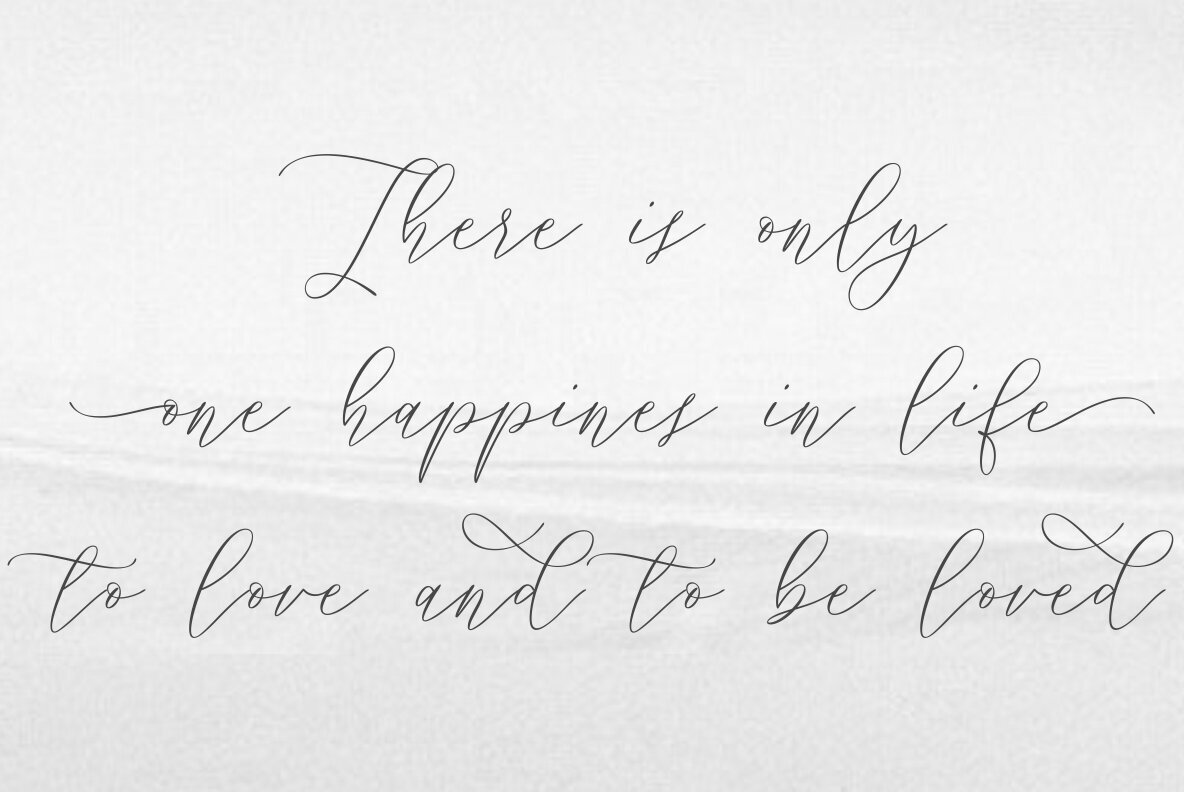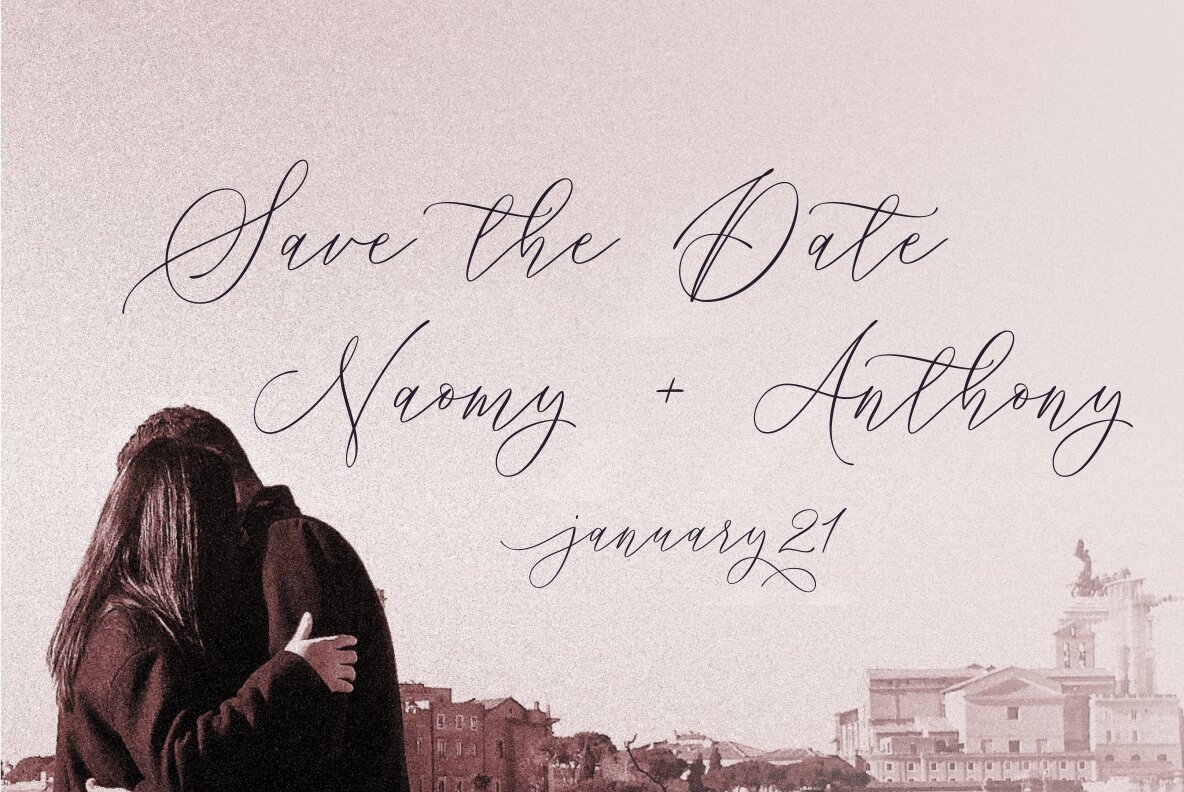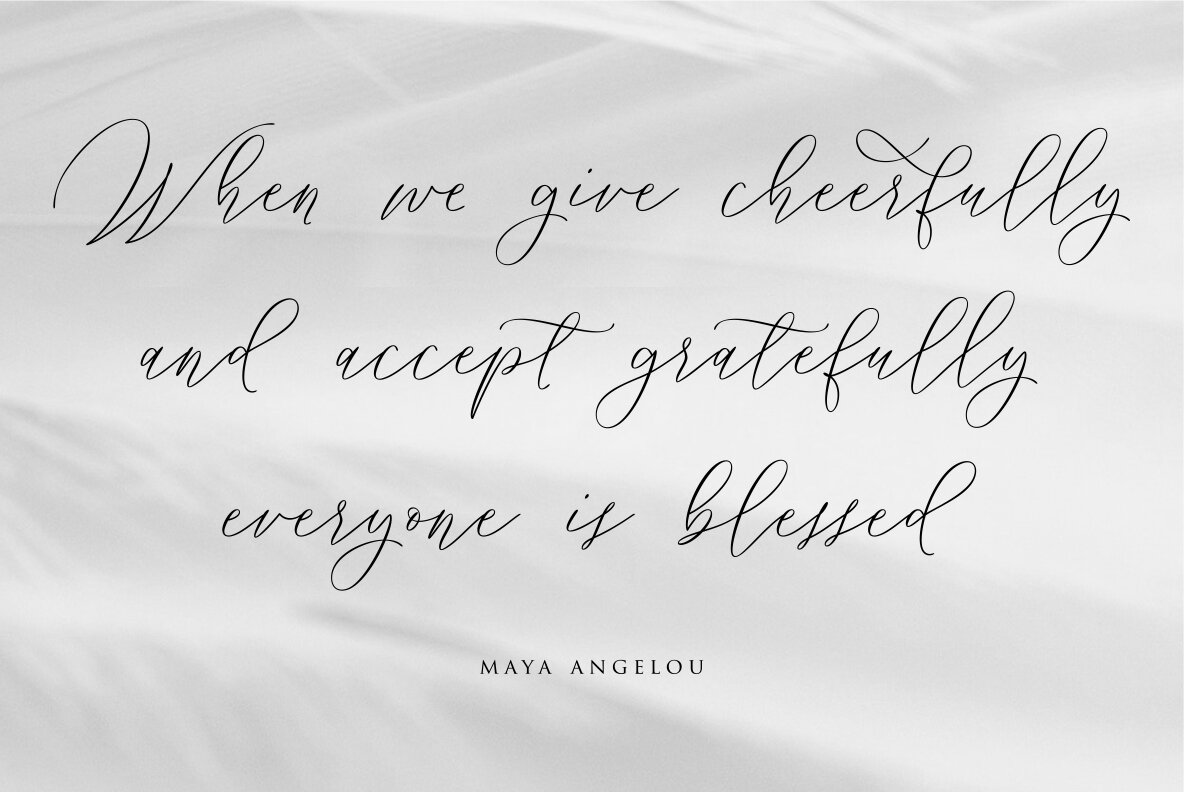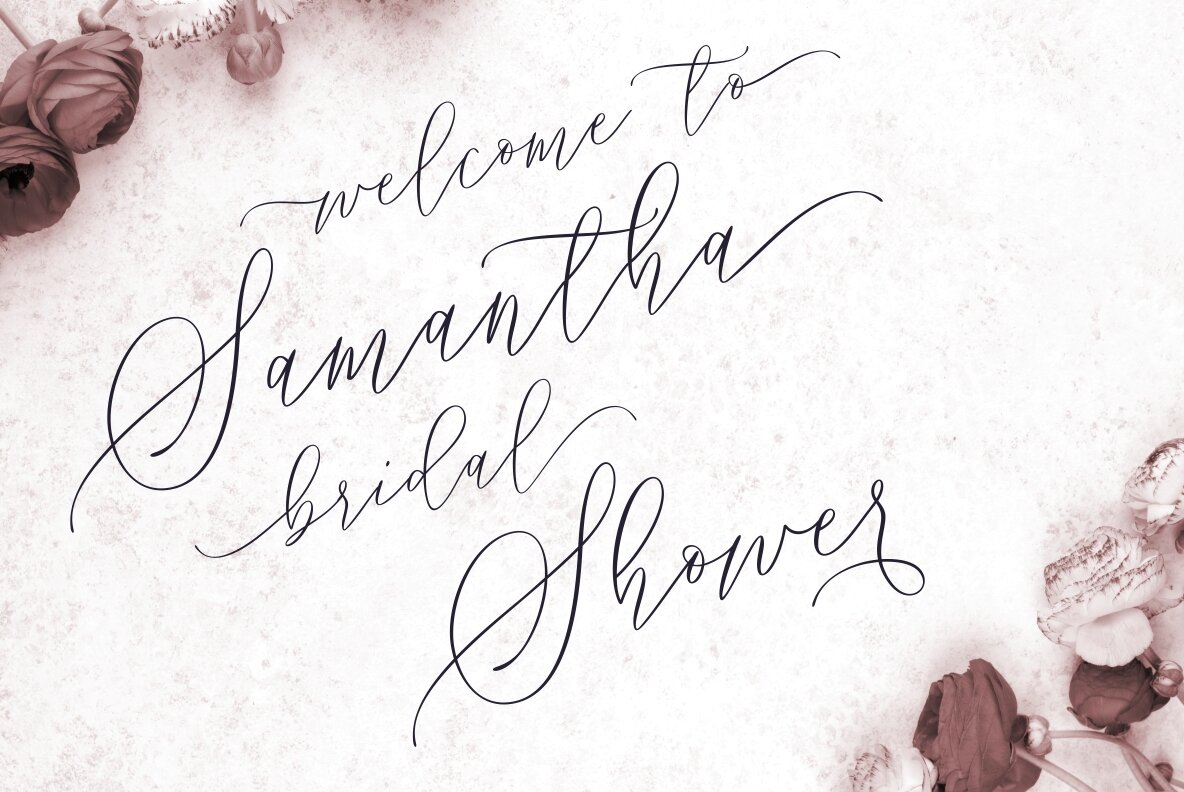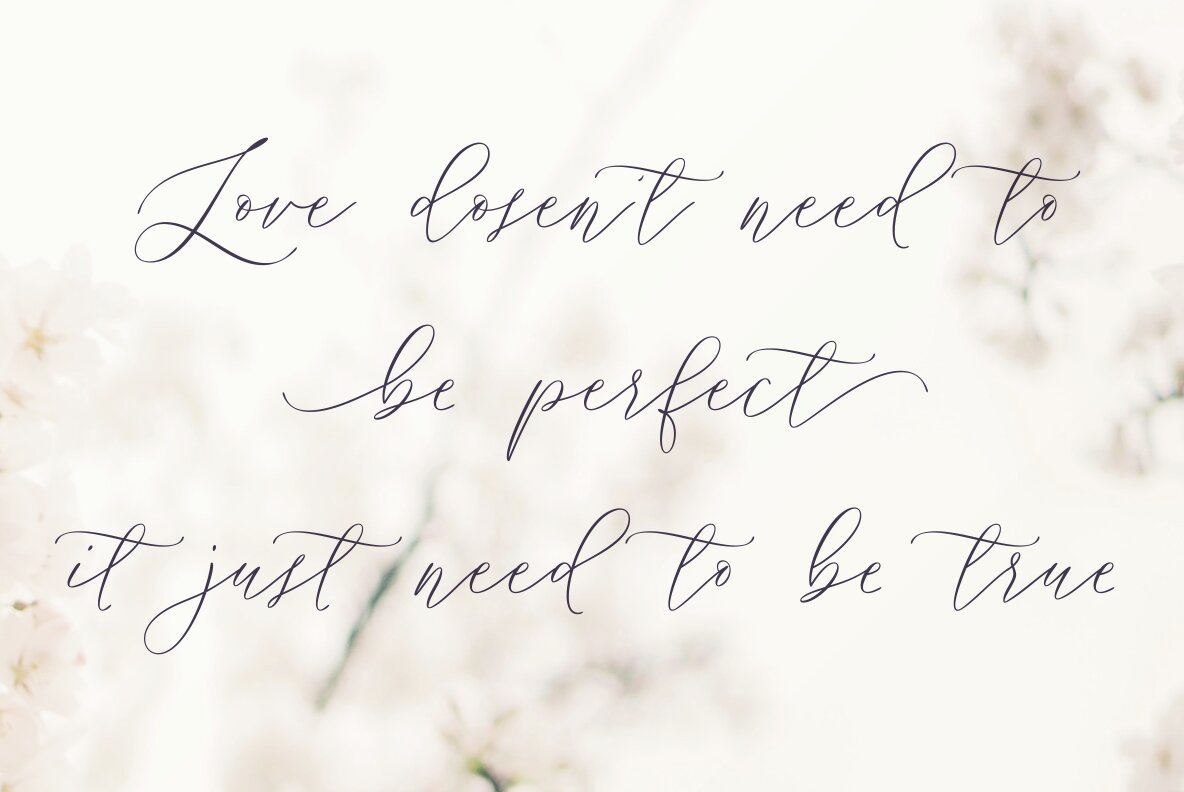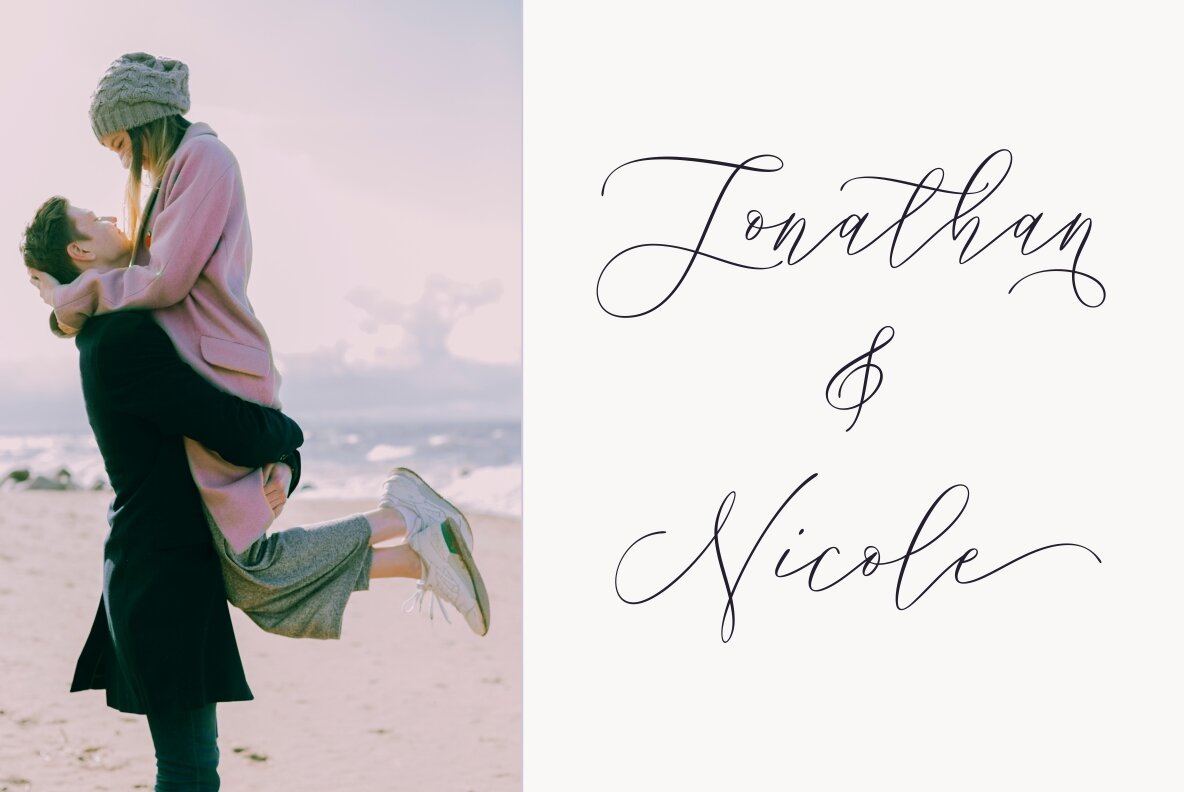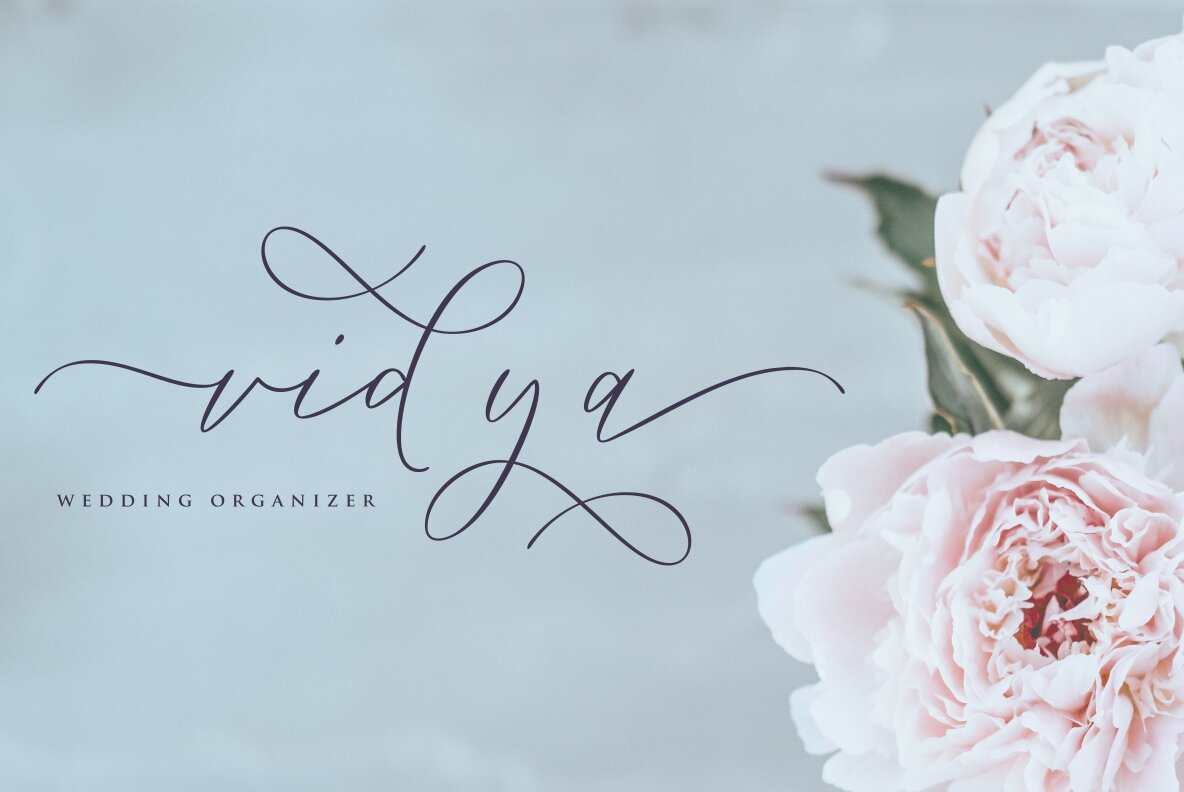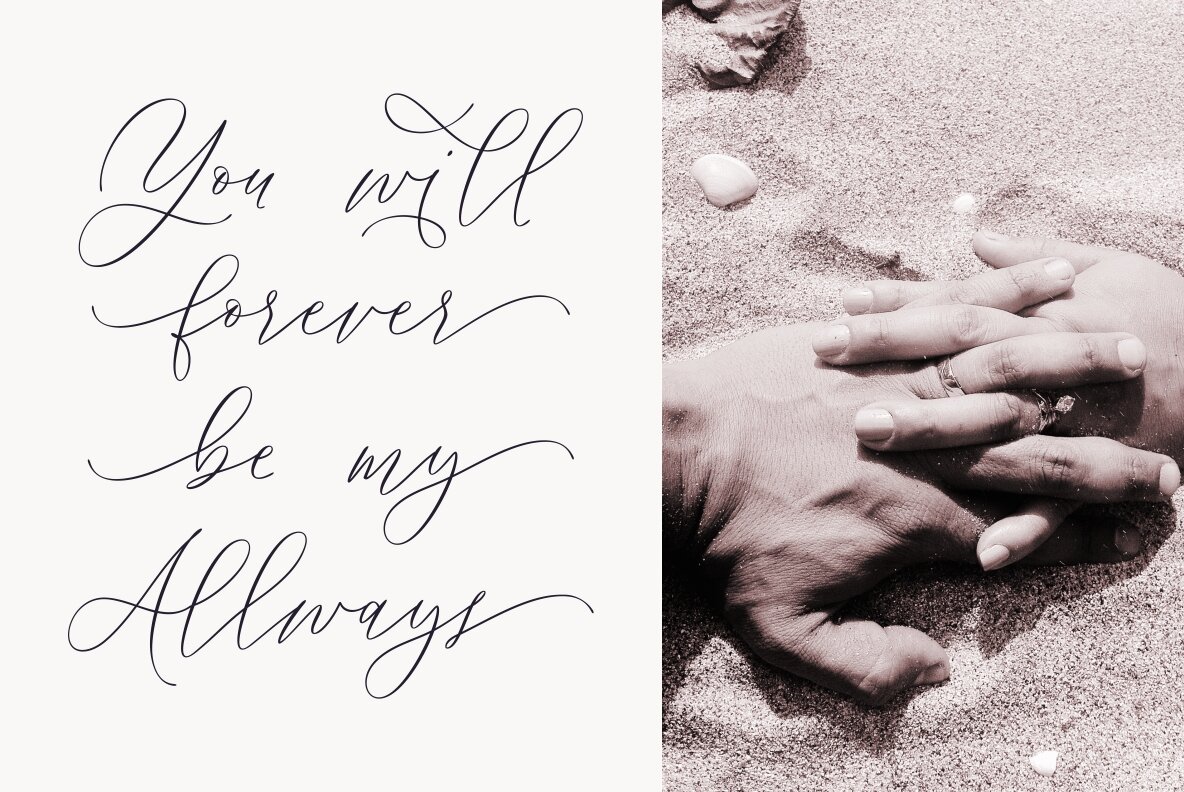
Way Kambas Font
Way Kambas
Way Kambas elegantly marries the essence of traditional calligraphy with a modern design philosophy. With its thin, graceful strokes and fluid movements, this font offers a stylish, natural aesthetic ideal for any design endeavor. Perfect for wedding invitations, quotes, greeting cards, and romantic projects, Way Kambas lends an air of sophistication to all your creative pursuits.Way Kambas: Modern Calligraphy with Graceful Strokes